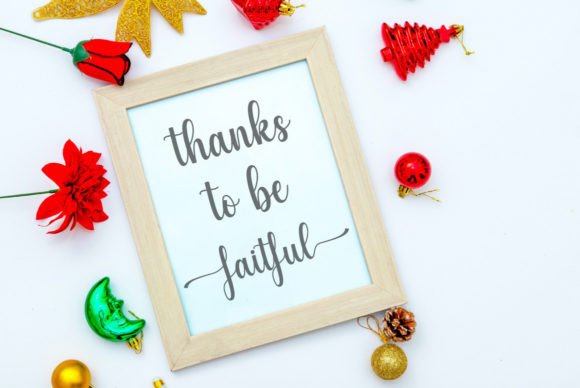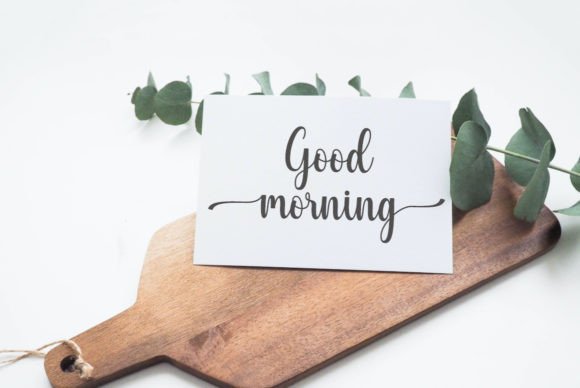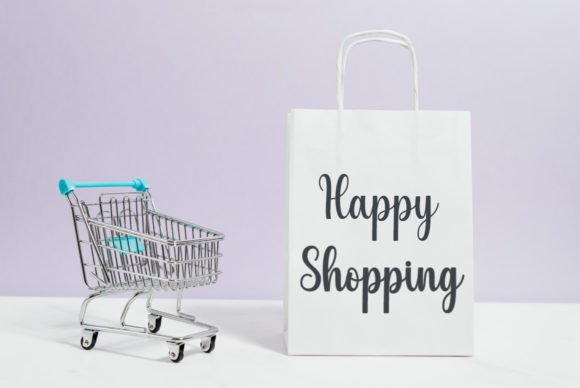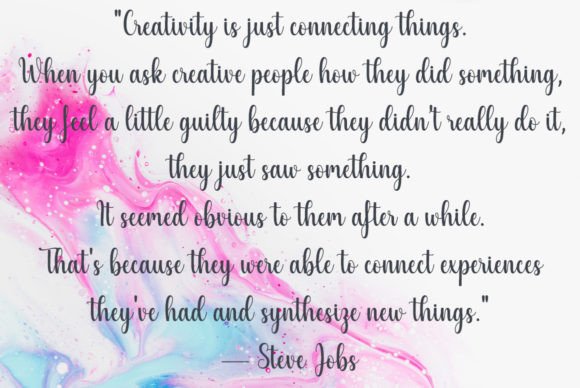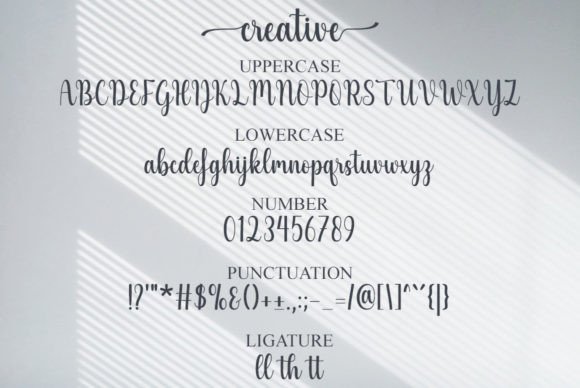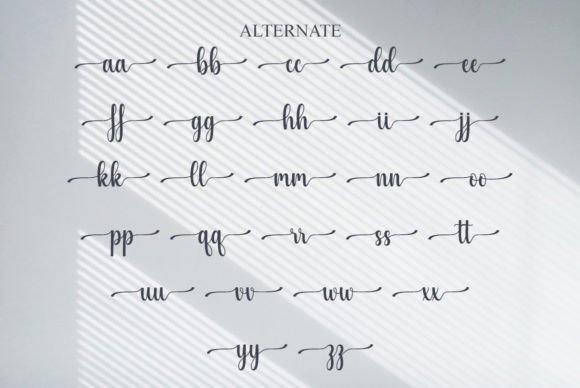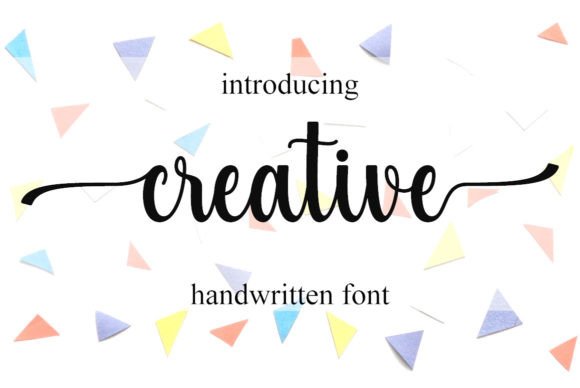
Introducing Creative Font: Elevate Your Designs with Elegance
Are you a designer or crafter looking to add a touch of sophistication and elegance to your projects? Look no further than the Creative Font, a stunning handwritten font that is sure to take your designs to the next level. In this article, we’ll dive into the features and benefits of the Creative Font, and explore how it can be used to create beautiful and unique designs.
A Stylish and Elegant Handwritten Font
The Creative Font is a stylish and incredibly elegant handwritten font that is perfect for a variety of design projects. Its flowing lines and cursive strokes evoke a sense of luxury and sophistication, making it ideal for designs that require a touch of class. Whether you’re creating wedding invitations, thank you cards, quotes, greeting cards, logos, business cards, or any other design that needs a handwritten touch, the Creative Font is sure to impress.
One of the best things about the Creative Font is its versatility. It can be used for a wide range of design projects, from formal events like weddings and anniversaries to more casual designs like greeting cards and quotes. The font’s elegant and sophisticated style makes it perfect for:
- Quotes and typography art
The Creative Font is PUA (Private Use Area) encoded, which means that you can access all of the glyphs and swashes with ease. PUA encoding allows designers to access a wide range of characters and symbols that are not found on a standard keyboard, making it easy to add unique and creative touches to your designs. With the Creative Font, you can easily access:
- Glyphs and swashes to add a touch of elegance to your designs
- Alternative characters and ligatures to create unique and interesting text
- Special characters and symbols to add a touch of whimsy to your designs
The Creative Font offers a range of benefits for designers and crafters, including:
- Flexibility: The Creative Font can be used for a wide range of design projects, from formal events to casual designs.
- Unique and creative designs: The font’s glyphs and swashes make it easy to create unique and interesting text that will stand out from the crowd.
- Time-saving: With the Creative Font, you can quickly and easily create beautiful and elegant designs without spending hours hand-lettering or drawing each character.
Tips for Using the Creative Font
Here are a few tips for using the Creative Font to get the most out of your designs:
- Experiment with different sizes and styles: The Creative Font looks great in a variety of sizes and styles, so don’t be afraid to experiment and find the look that works best for your design.
- Mix and match with other fonts: The Creative Font pairs well with a range of other fonts, so try mixing and matching it with other fonts to create interesting and unique text.
- Use the glyphs and swashes to add a touch of elegance: The glyphs and swashes in the Creative Font are designed to add a touch of elegance and sophistication to your designs, so be sure to use them to create beautiful and interesting text.
| Font Name | Creative Font |
| Author | Hardiboy Design |
The Creative Font is a stunning handwritten font that is perfect for designers and crafters looking to add a touch of elegance and sophistication to their projects. With its PUA encoding and range of glyphs and swashes, it’s easy to create unique and interesting text that will stand out from the crowd. Whether you’re creating wedding invitations, thank you cards, quotes, greeting cards, logos, business cards, or any other design that needs a handwritten touch, the Creative Font is sure to impress.